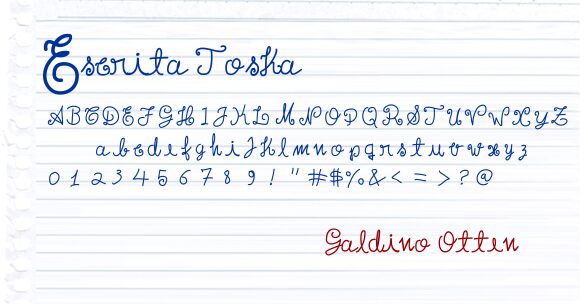
Escrita Toska Propria Med Italic by Galdino Otten is a free handwritten font shaped by highly personalized penmanship. Long loops and curling joins turn many letters into flourishes, and the stroke stays lively rather than mechanically even. Several forms stretch above or below their neighbors, giving the line an animated silhouette.
The signature-like style suits fashion branding, album artwork, and event invitations with an intimate, theatrical voice. On boutique packaging, the looping letters can become part of an emblem rather than serving only as a product name.
Escrita Toska Propria Medium Cursive is a font by Galdino Otten, designed by Galdino Otten in 2012.